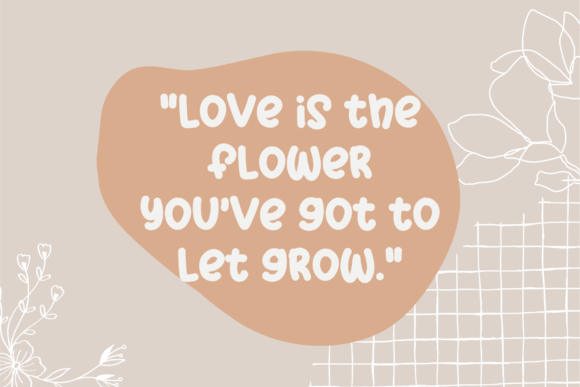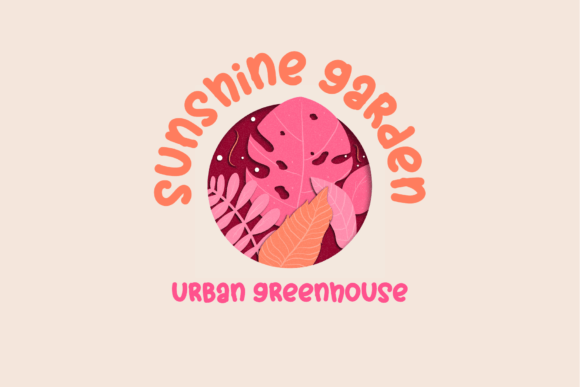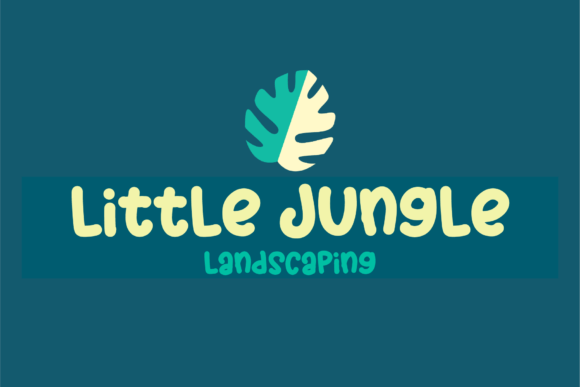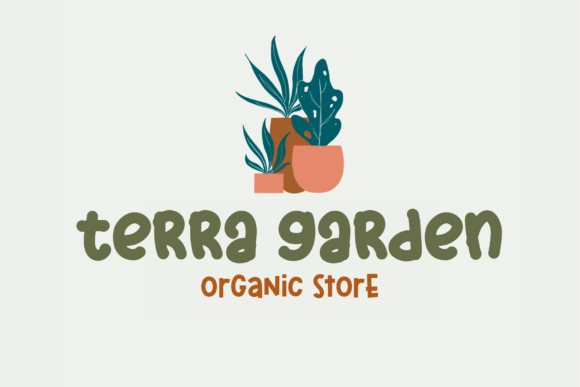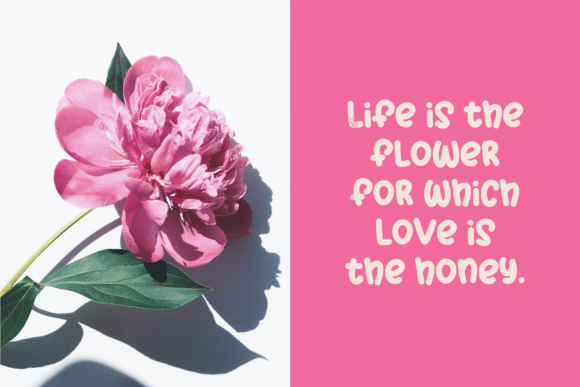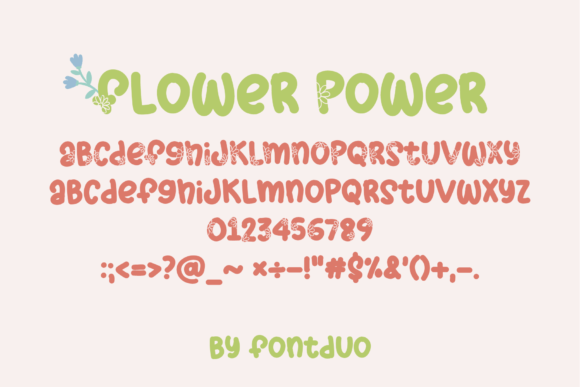
Introducing Flower Power: The Sweet and Adorable Display Font for Your Designs
Are you looking for a font that embodies the free-spirited and playful vibe of the 1960s? Look no further than Flower Power, a sweet and adorable display font that’s perfect for designers and crafters who want to add a touch of hippie chic to their work. In this article, we’ll take a closer look at Flower Power and how it can help you create stunning designs that exude a carefree and whimsical feel.
What is Flower Power?
Flower Power is a display font that’s inspired by the iconic symbols of the 1960s counterculture movement. The font features playful, hand-drawn lettering with a mix of floral patterns, peace signs, and other psychedelic elements that evoke the era’s love of peace, love, and rock ‘n’ roll. With its bold, colorful, and eye-catching design, Flower Power is perfect for creating eye-catching headlines, titles, and graphics that demand attention.
Key Features of Flower Power
- Sweet and Adorable Design: Flower Power’s design is characterized by its sweet and adorable aesthetic, making it perfect for designs that require a playful and whimsical touch.
- Hippie Vibe: The font’s inspiration from the 1960s counterculture movement gives it a distinct hippie vibe that’s perfect for designs that want to evoke a sense of freedom and nonconformity.
- Hand-Drawn Lettering: Flower Power features hand-drawn lettering that gives it a unique, organic feel that’s perfect for designs that require a personal touch.
- Multilingual Support: The font supports multiple languages, making it a great choice for designers who work with international clients or want to create designs that cater to a global audience.
Uses of Flower Power
Flower Power is a versatile font that can be used in a variety of design projects, including:
- Branding and Packaging: Use Flower Power to create eye-catching logos, labels, and packaging that stands out on store shelves.
- Posters and Flyers: Create stunning posters and flyers that announce events, concerts, or festivals with a hippie twist.
- Social Media Graphics: Use Flower Power to create engaging social media graphics that showcase your brand’s personality and style.
- Crafting and Scrapbooking: Add a touch of whimsy to your crafting and scrapbooking projects with Flower Power’s playful and colorful design.
Tips for Using Flower Power
Here are some tips for using Flower Power in your designs:
- Pair with Neutral Backgrounds: Pair Flower Power with neutral backgrounds to make the font stand out and create visual contrast.
- Experiment with Colors: Experiment with different colors and gradients to match the playful and psychedelic vibe of Flower Power.
- Use for Headlines and Titles: Use Flower Power for headlines and titles to create a bold and eye-catching effect.
Flower Power is a sweet and adorable display font that’s perfect for designers and crafters who want to add a touch of hippie chic to their work. With its playful, hand-drawn lettering and psychedelic elements, Flower Power is a versatile font that can be used in a variety of design projects. Whether you’re creating branding and packaging, posters and flyers, or social media graphics, Flower Power is sure to bring a smile to your audience’s faces. So why not give Flower Power a try and see how it can add a touch of whimsy and fun to your designs?